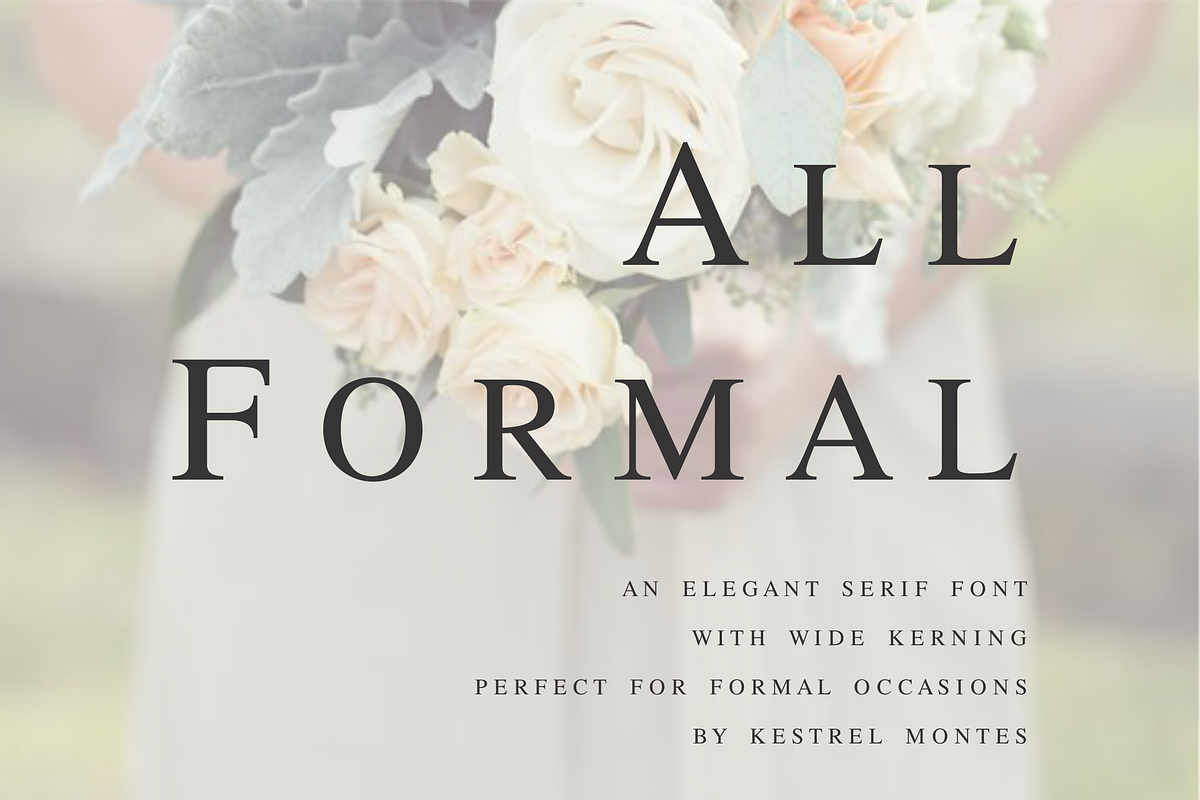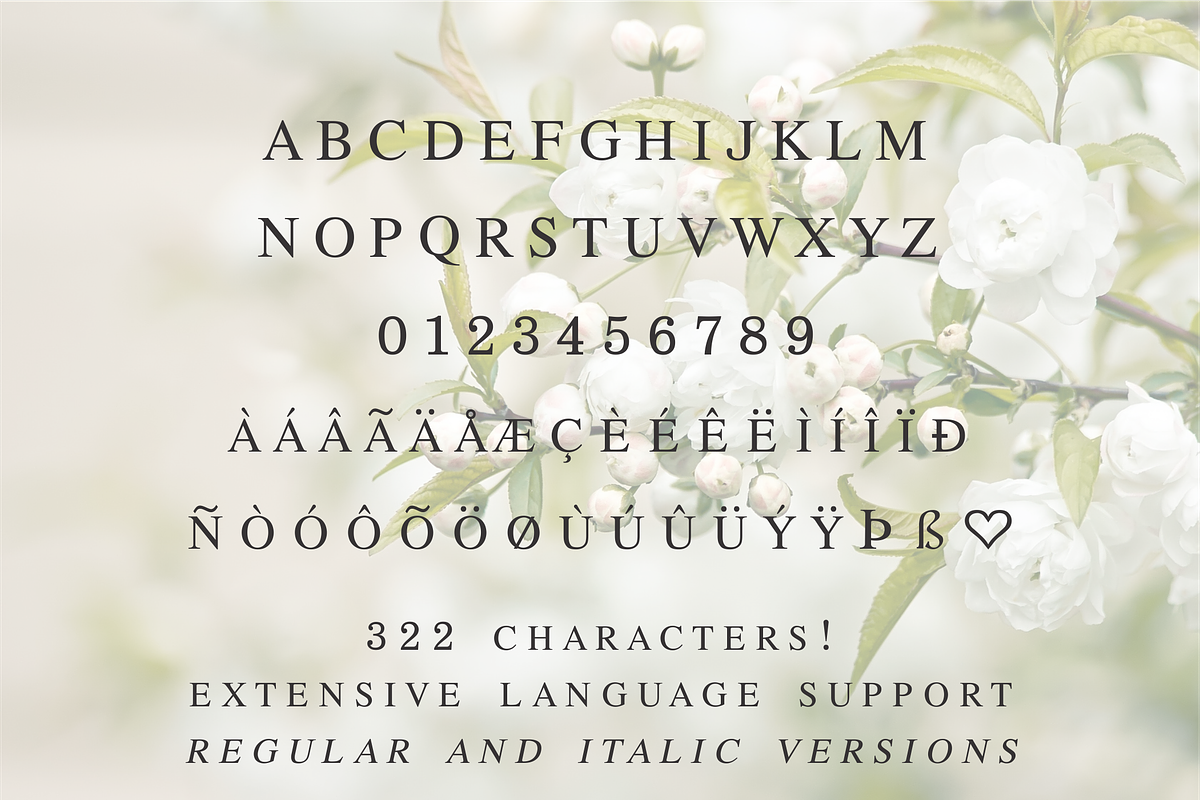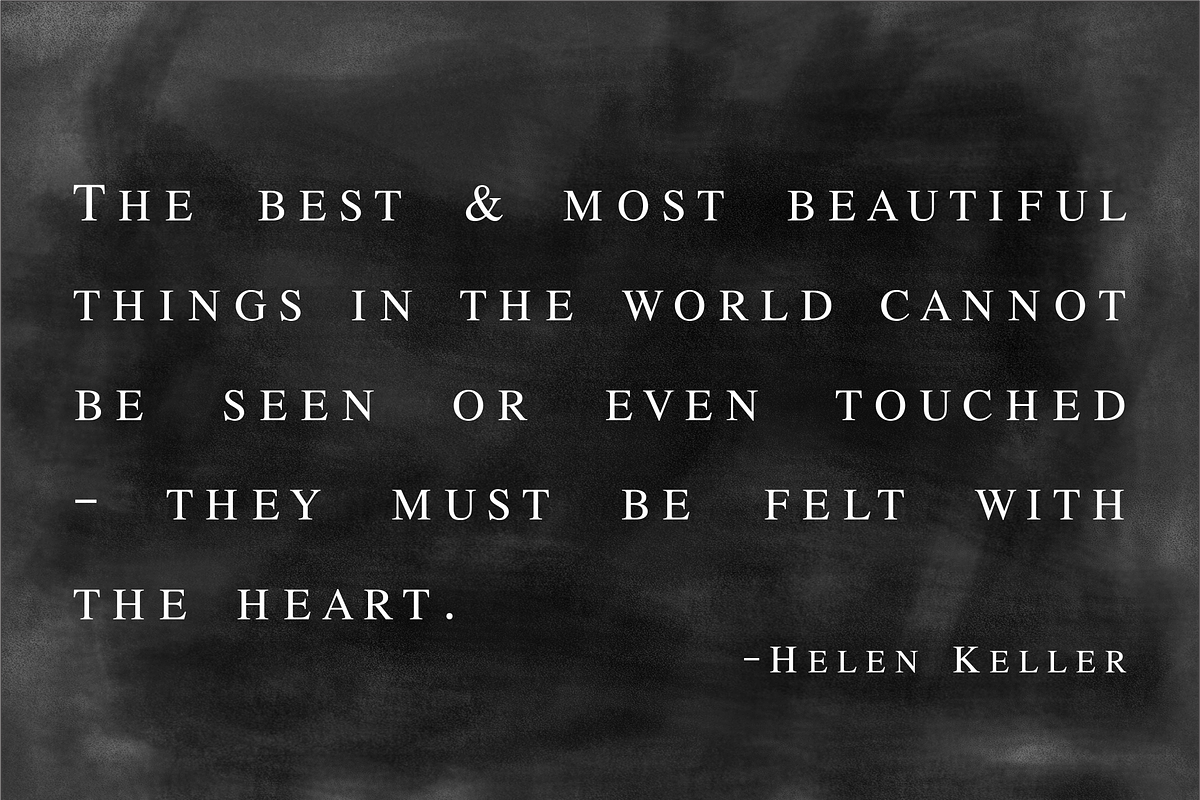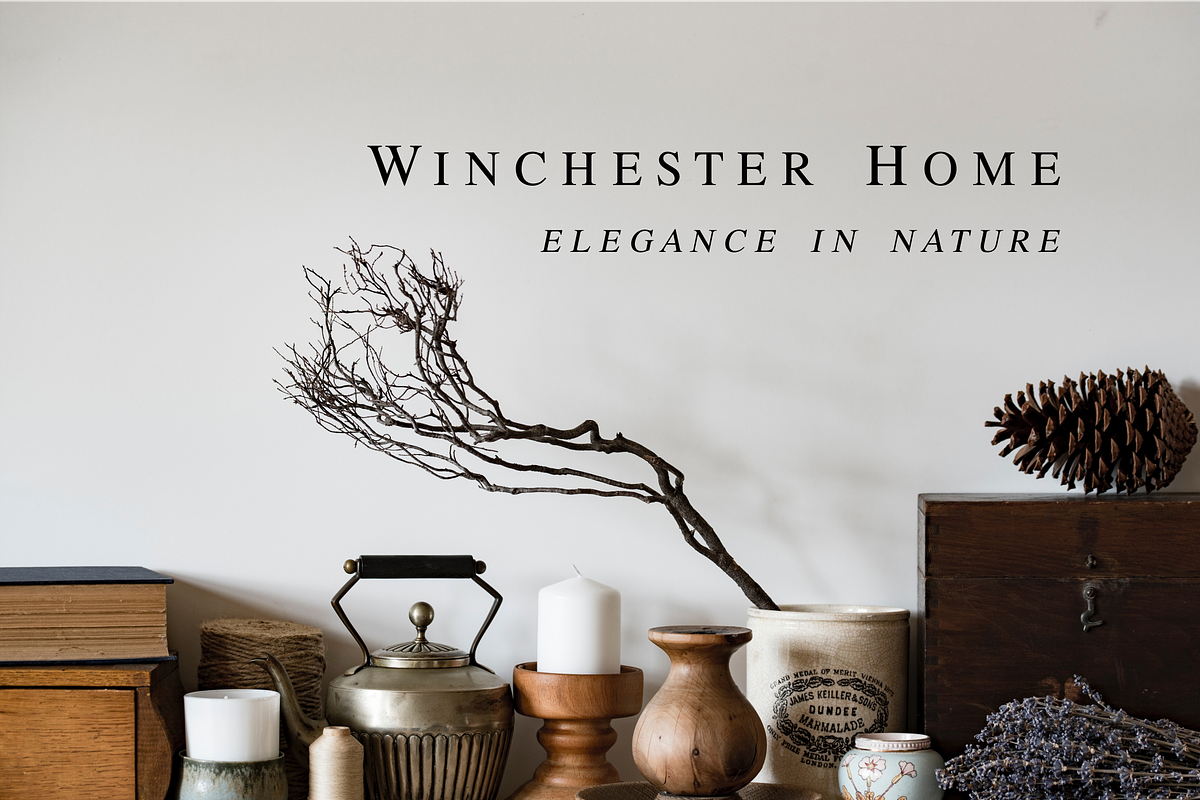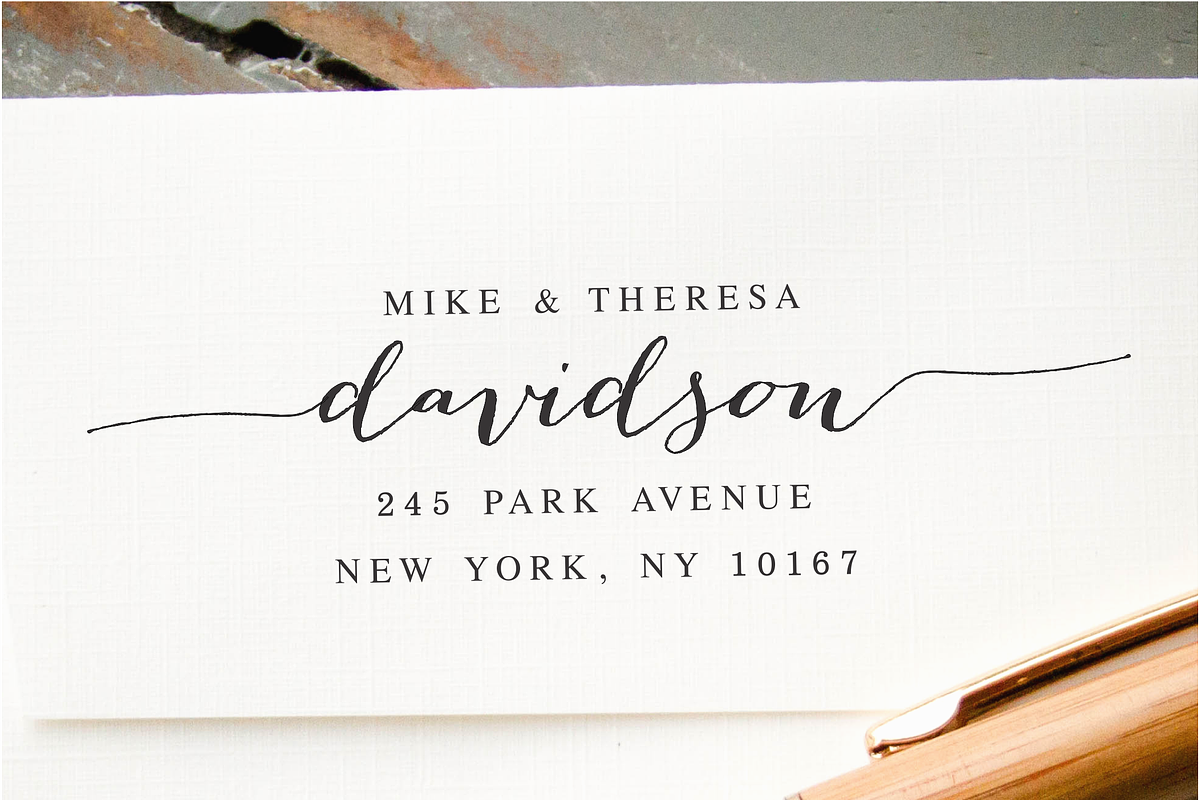
All Formal By Kestrel Montes
All Formal By Kestrel Montes by Kestrel Montes, a Serif Font by INKMETHIS is a font selected for branding, posters, packaging, typography.
- All Formal by Kestrel Montes is an elegant all caps serif font with wide kerning perfect for formal occasions and business logos.
Why All Formal By Kestrel Montes is worth a look
All Formal By Kestrel Montes by Kestrel Montes, a Serif Font by INKMETHIS fits naturally into Branding, posters, packaging, typography.